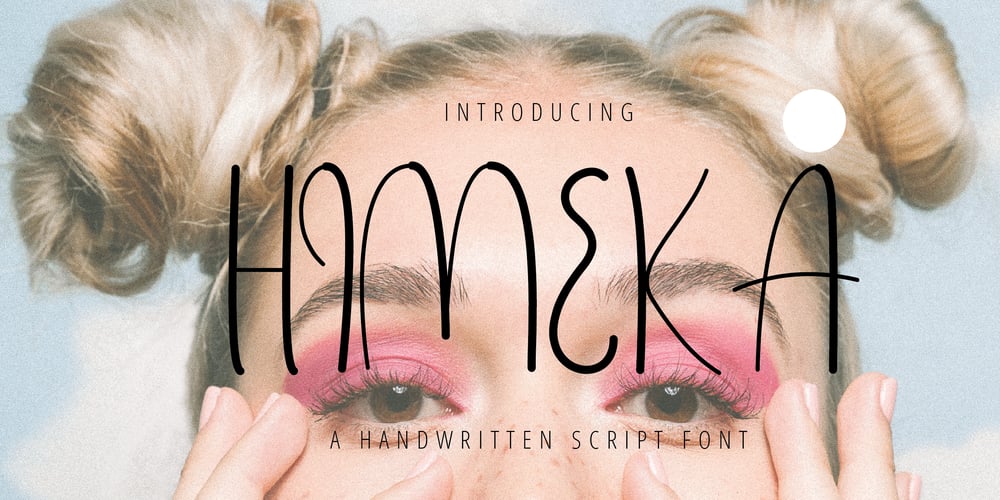
Himeka
Himeka font
Himeka Font Family was designed by Andrea Zudip Aggasi and published by Nirmalagraphics. Himeka contains 1 styles and family package options. Himeka features a handwritten style with a revised, unique look. This font is suitable for a variety of uses including logos, clothing and anything that might compliment a feminine touch. It includes ligatures and multi-lingual support.